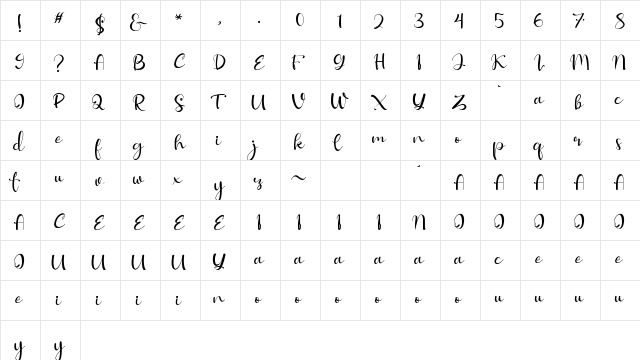
Syakira Demo Regular
Design Context for Syakira Demo Typeface
Syakira Demo is a composed and adaptable typeface that performs quietly and consistently across a wide range of design contexts.